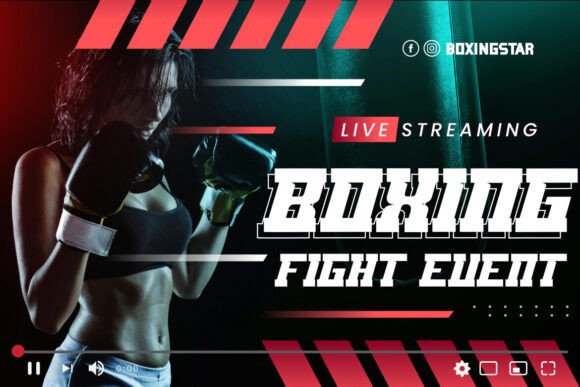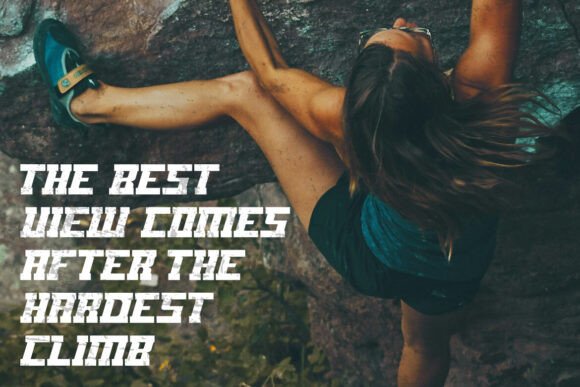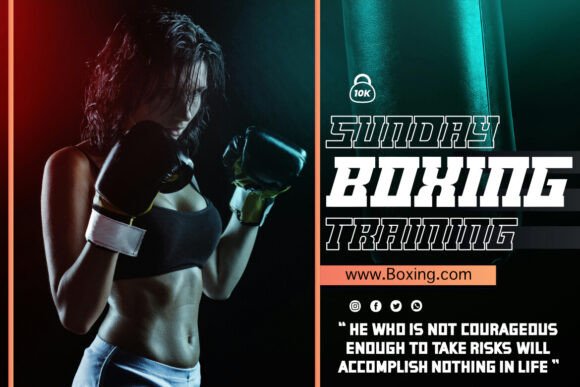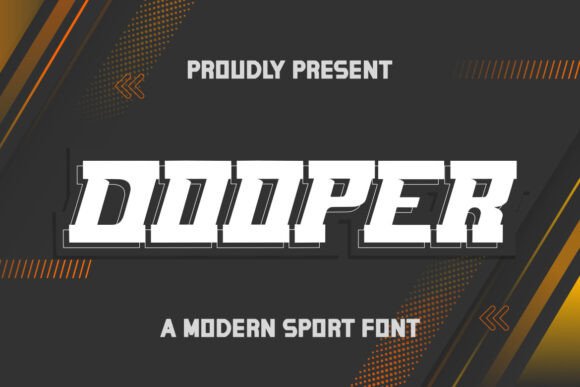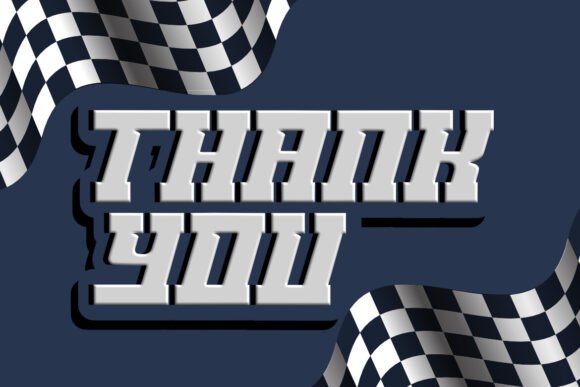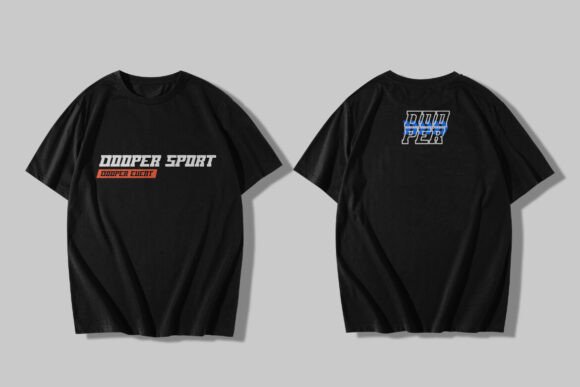
Introducing DOOPER: The Ultimate Font for Modern Sports Designs
Are you a designer or crafter looking for a font that embodies the spirit of modern sports? Look no further than DOOPER, a sleek and stylish font designed specifically for creating bold, eye-catching designs. With its clean lines, dynamic feel, and versatility, DOOPER is the perfect choice for team logos, athletic wear, and sporty designs of all kinds.
The Design Behind DOOPER
DOOPER’s design is centered around creating a modern sports look that’s both stylish and functional. The font features bold, clean lines that give it a strong and confident feel, making it perfect for designs that need to stand out. The dynamic feel of DOOPER is achieved through its carefully crafted letterforms, which are designed to convey a sense of movement and energy.
Key Features of DOOPER
- Bold and Clean Lines: DOOPER’s bold and clean lines make it perfect for creating designs that need to stand out.
- Dynamic Feel: The font’s dynamic feel is achieved through its carefully crafted letterforms, which convey a sense of movement and energy.
- Versatile: DOOPER is versatile enough to be used for a wide range of designs, from team logos and athletic wear to sporty designs and more.
- Modern Sports Look: DOOPER is designed specifically for modern sports designs, making it the perfect choice for designers and crafters who want to create bold, eye-catching designs.
Uses for DOOPER
DOOPER is a versatile font that can be used for a wide range of designs, including:
- Team Logos: DOOPER is perfect for creating bold, eye-catching team logos that will stand out on jerseys, uniforms, and more.
- Athletic Wear: The font’s dynamic feel and modern sports look make it perfect for designing athletic wear, such as t-shirts, hoodies, and hats.
- Sporty Designs: DOOPER can be used for a wide range of sporty designs, from posters and flyers to social media graphics and more.
- Branding and Identity: The font’s bold and clean lines make it perfect for creating branding and identity materials, such as business cards, brochures, and more.
Why Choose DOOPER?
There are many fonts to choose from, but DOOPER stands out for its unique combination of style, versatility, and functionality. Here are just a few reasons why designers and crafters should choose DOOPER for their next project:
- Unique Design: DOOPER’s design is unlike any other font on the market, making it perfect for designers and crafters who want to create unique and eye-catching designs.
- High-Quality: DOOPER is a high-quality font that’s designed to deliver exceptional results, even at large sizes.
DOOPER is a sleek and stylish font designed specifically for modern sports designs. With its bold, clean lines, dynamic feel, and versatility, it’s the perfect choice for team logos, athletic wear, and sporty designs of all kinds. Whether you’re a designer or crafter, DOOPER is a must-have font that will help you create bold, eye-catching designs that will stand out from the crowd.